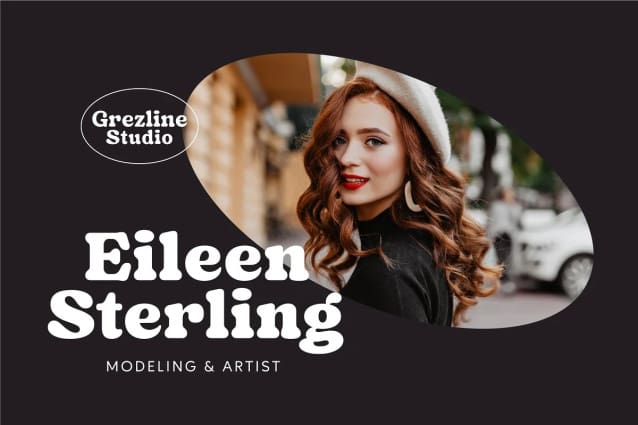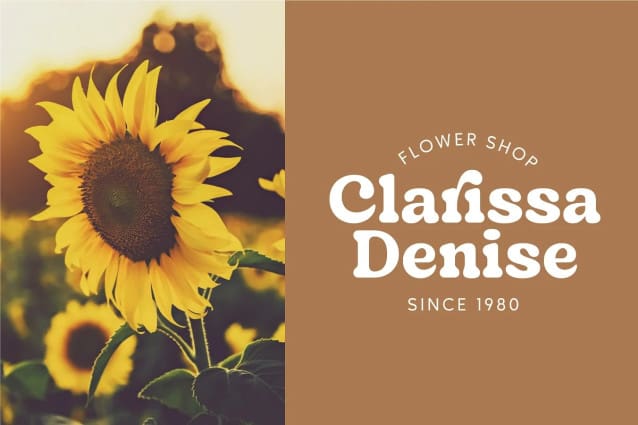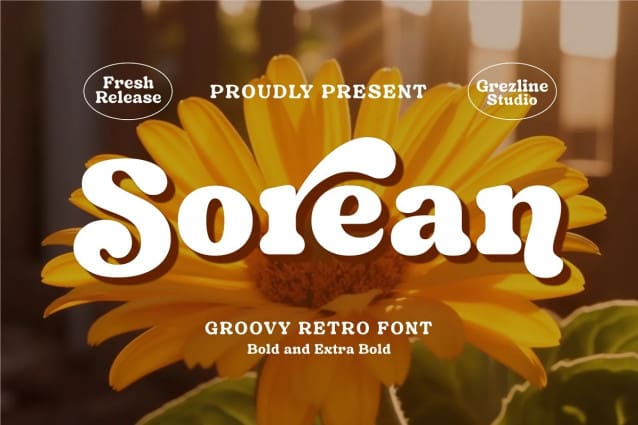
Sorean Retro Font
Sorean Retro Font, is a groovy retro font with a lot of alternate glyphs. This font has expressive and cheerful characteristics, perfectly match for groovy and retro design. Sorean font is also usable in a wide range of works such as logos, covers, posters, quotes, product packaging, merchandise, social media and much more!